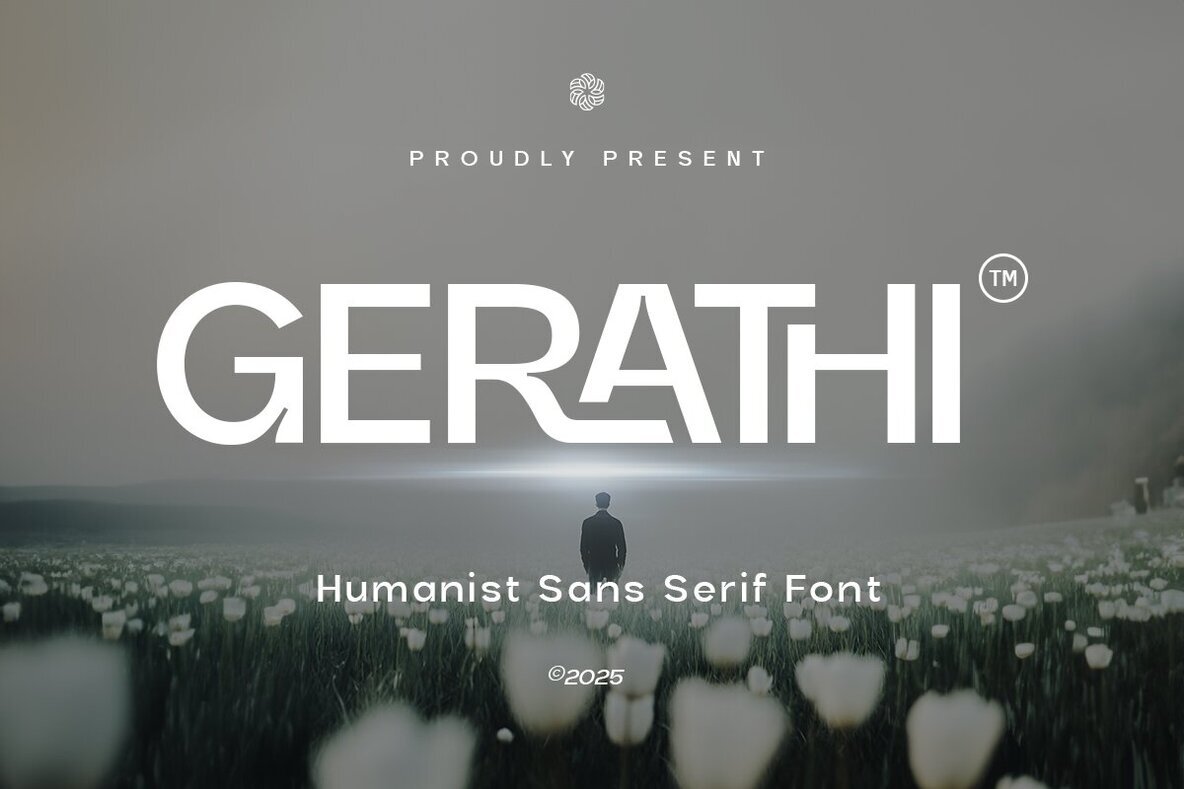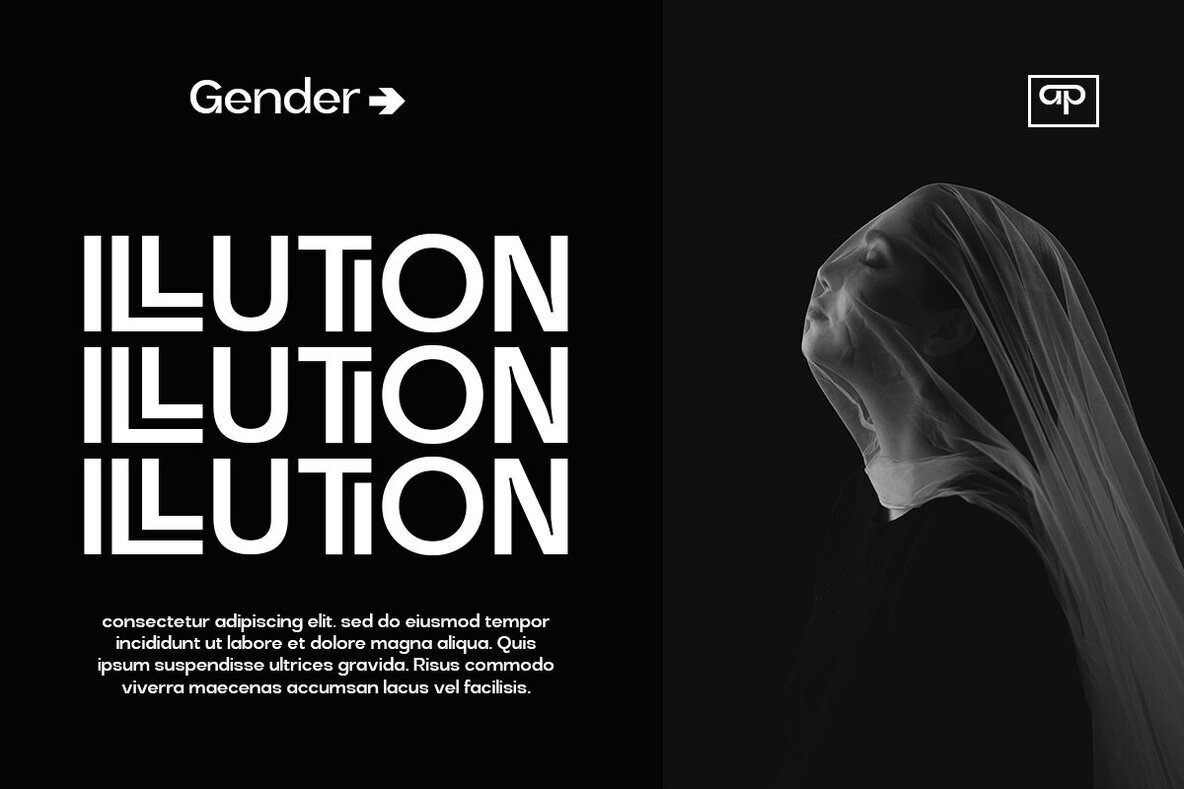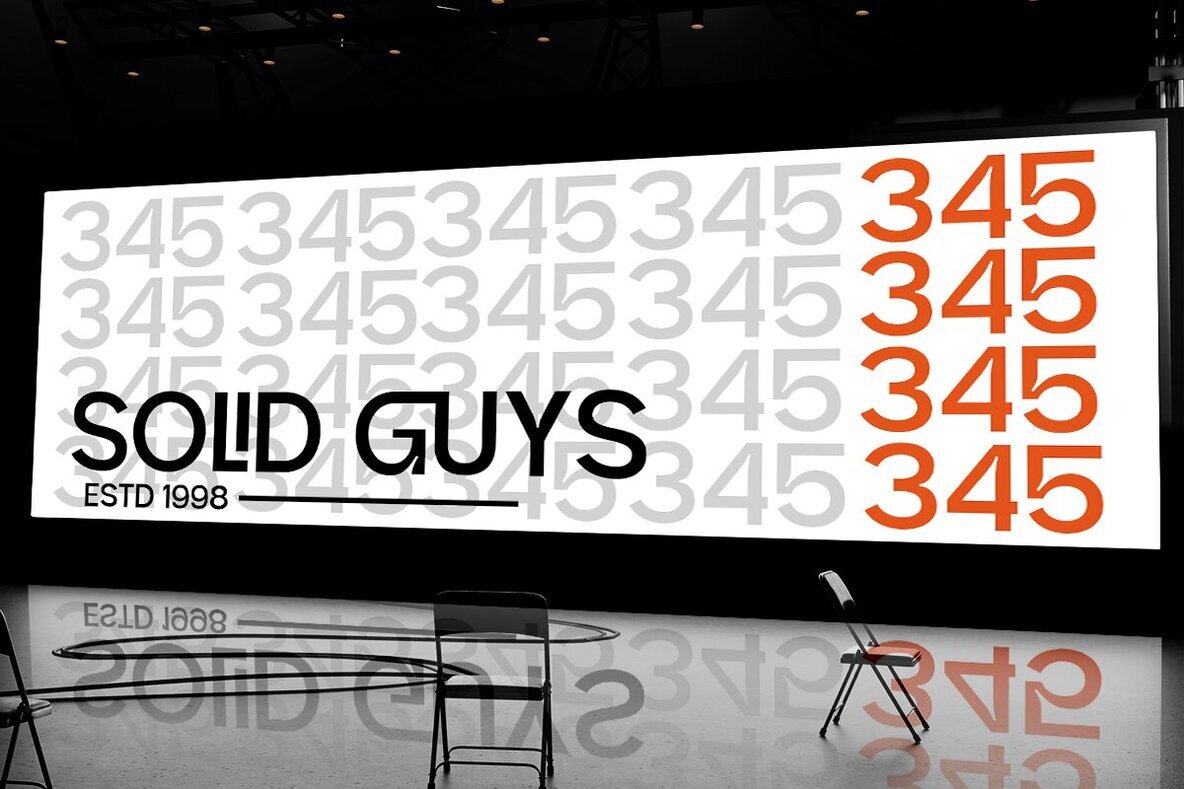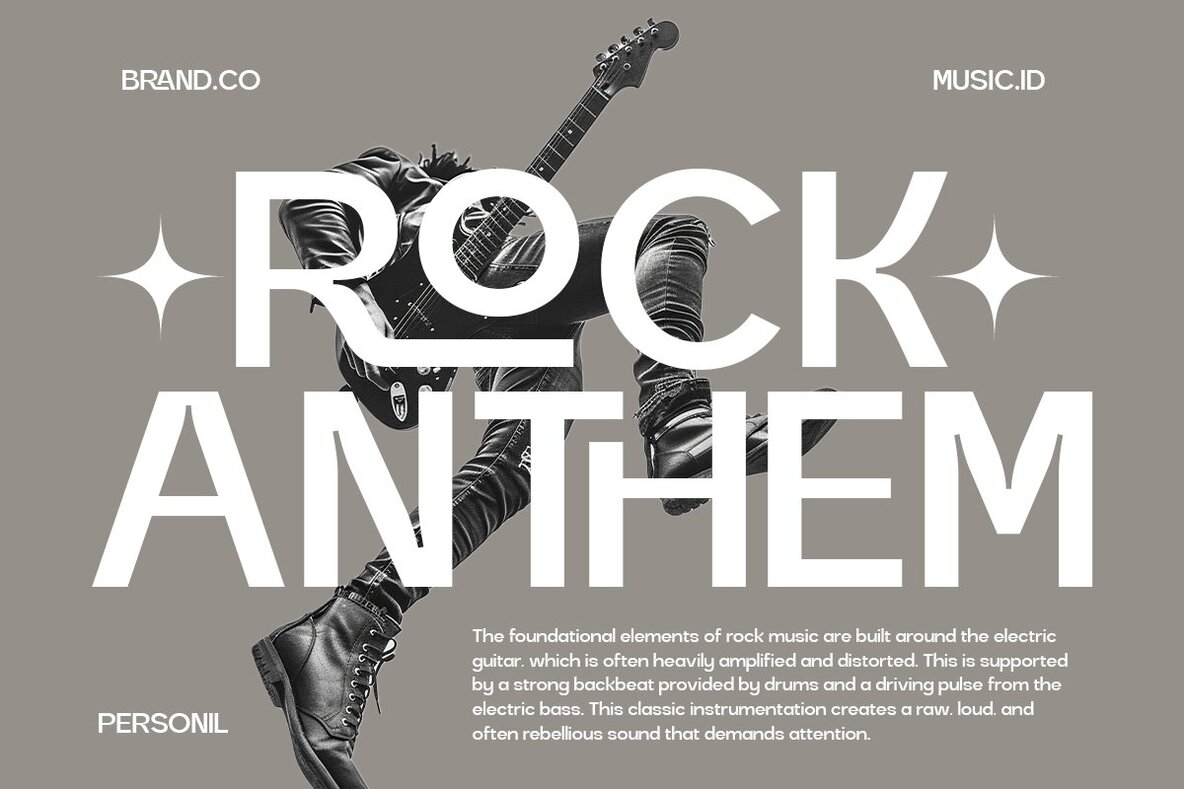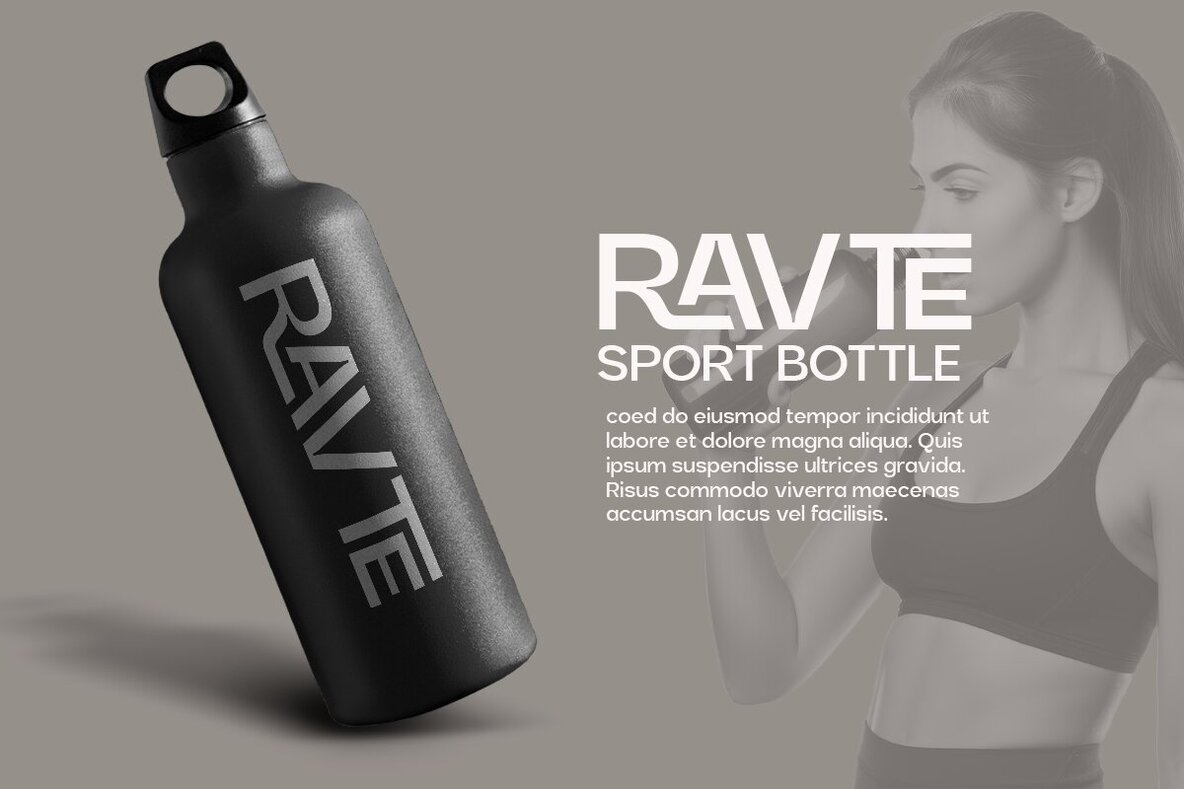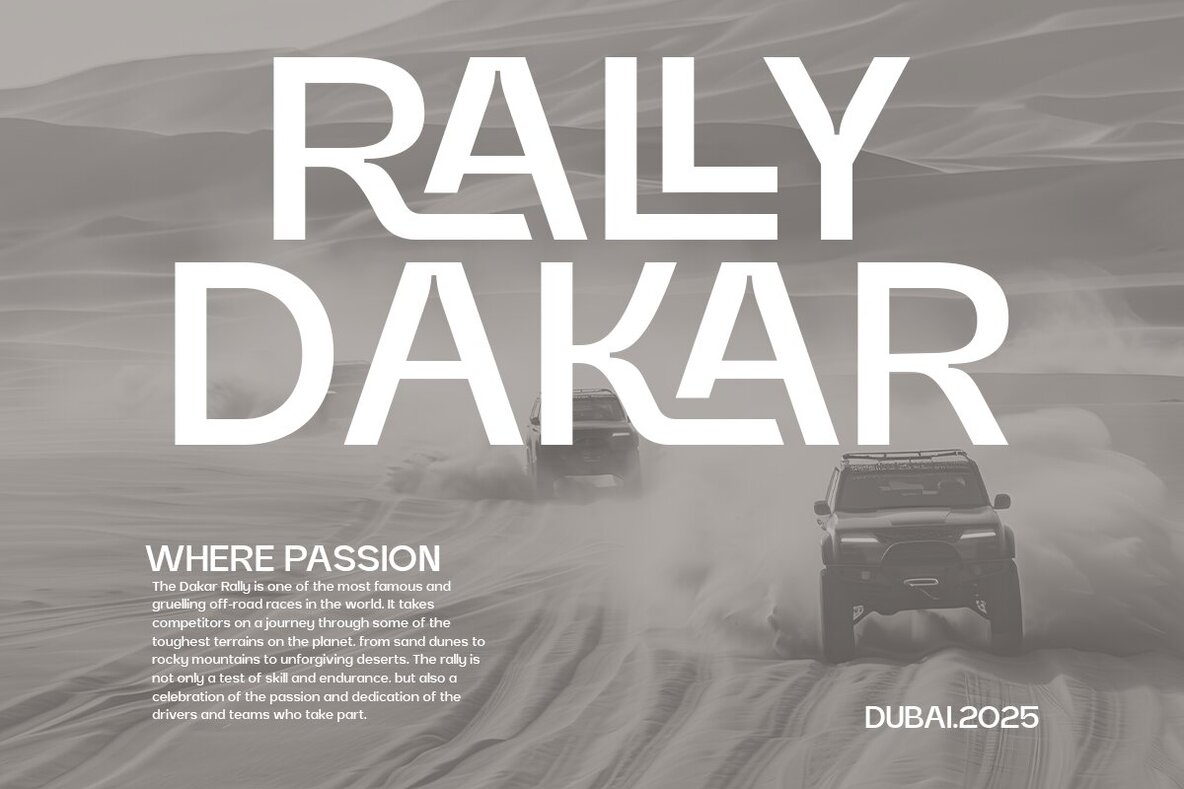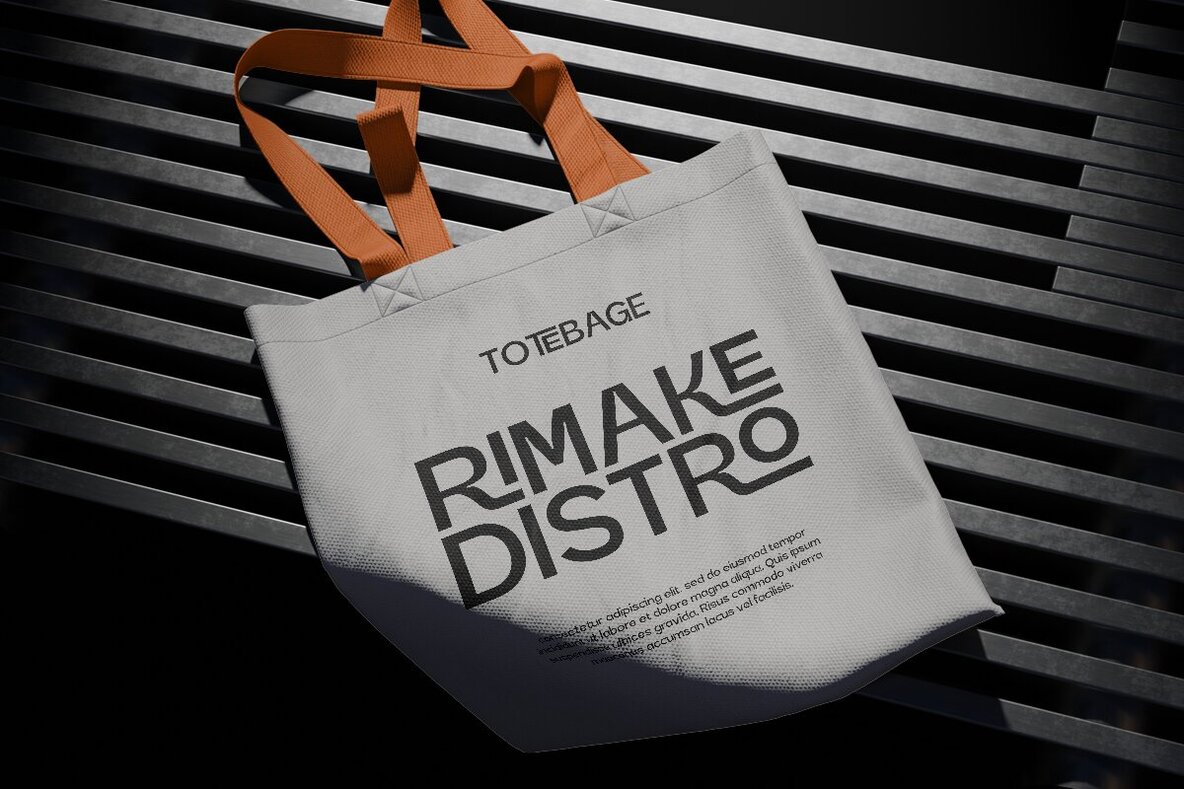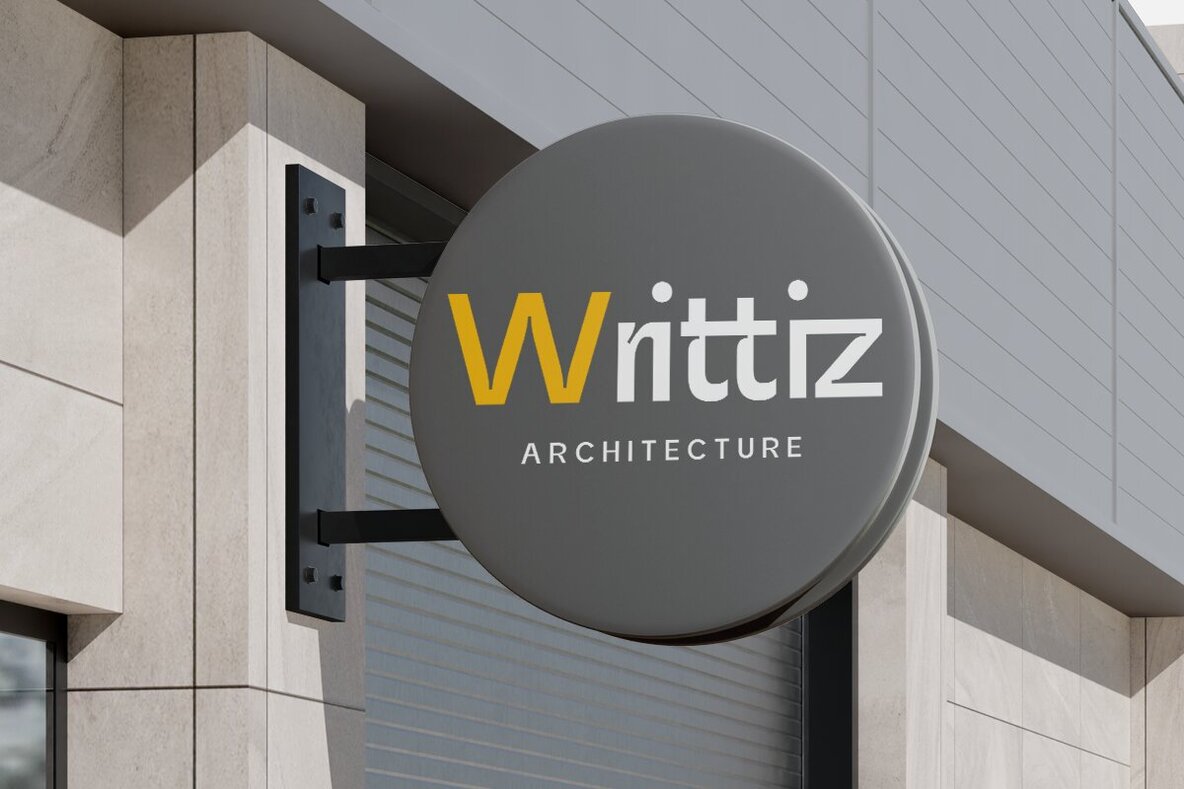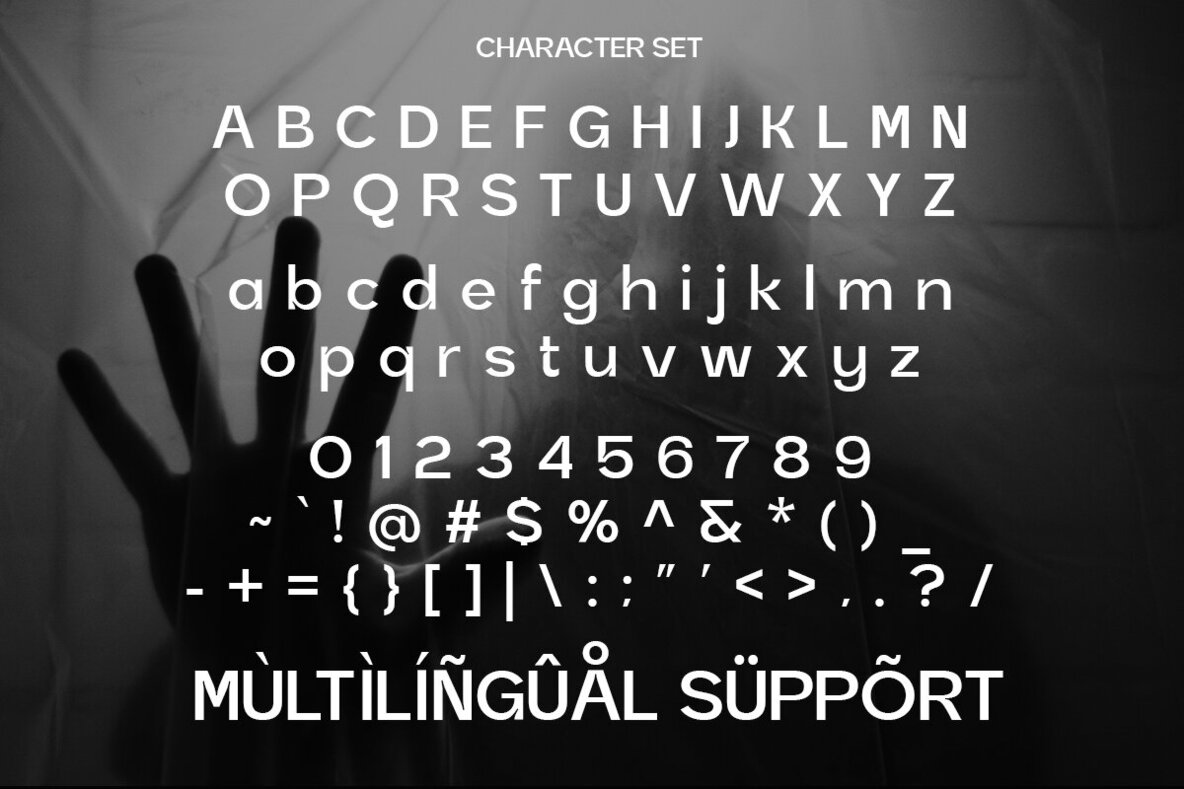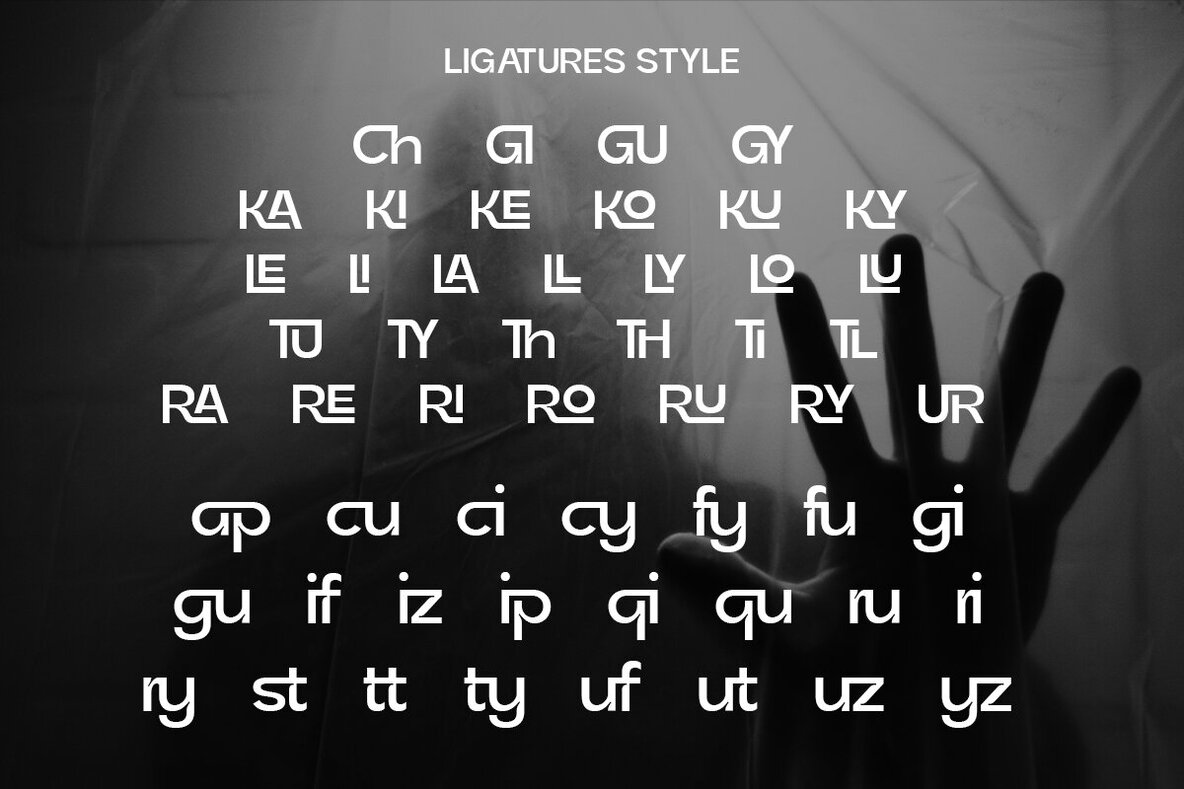
Gerathi Font
Gerathi brings together geometric structure and refined humanist curves for a sophisticated visual presence. Designed for high readability, this modern sans serif font maintains a sense of professionalism while infusing each project with a subtle warmth. Its balanced letterforms make it suitable for branding, headlines, logos, posters, and editorial layouts, delivering clarity and style across digital and print formats. The timeless character of Gerathi ensures versatility for creative work that demands both contemporary appeal and lasting elegance. Each detail is shaped to provide a clean, minimal look—ideal for projects where visual impact and legibility are key priorities.Gerathi Humanist Sans Serif Font